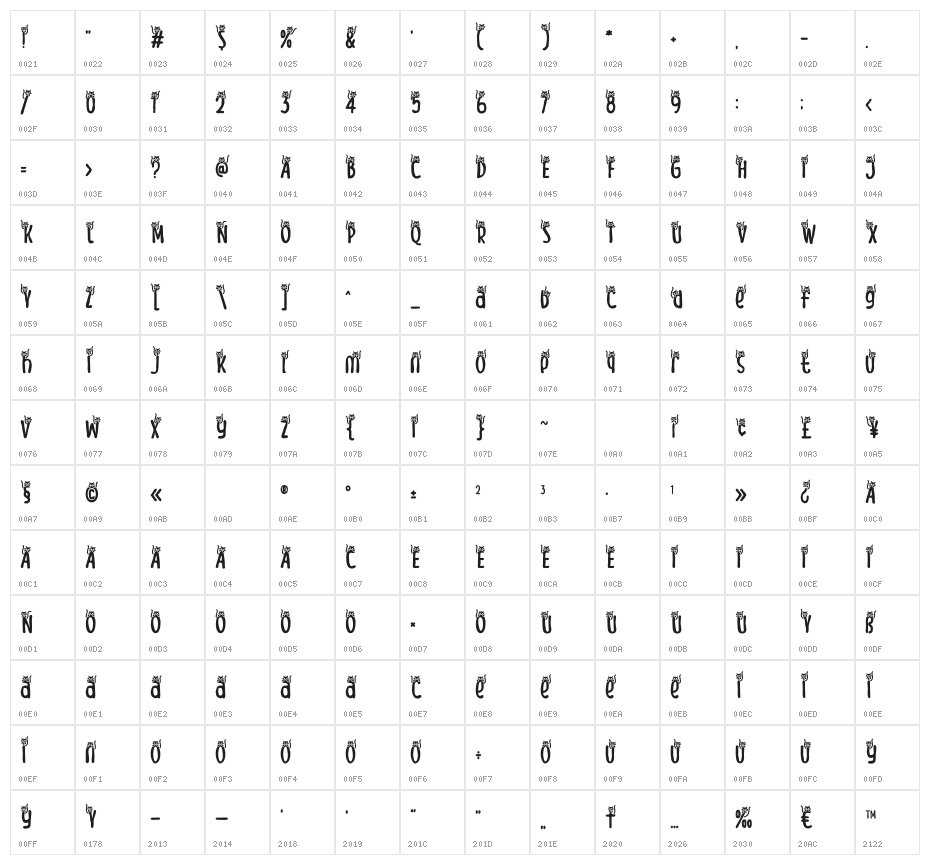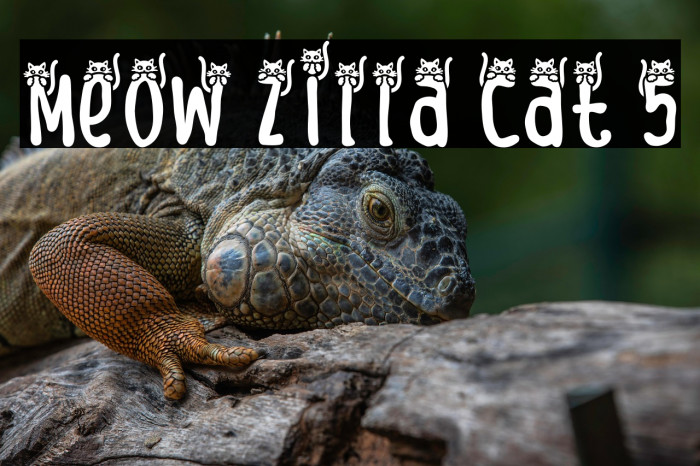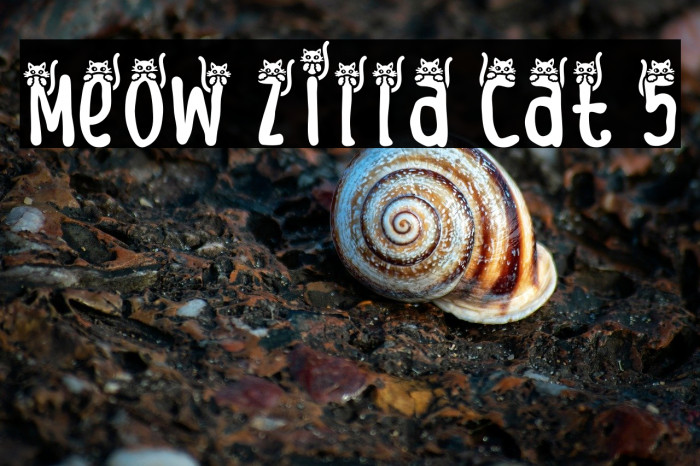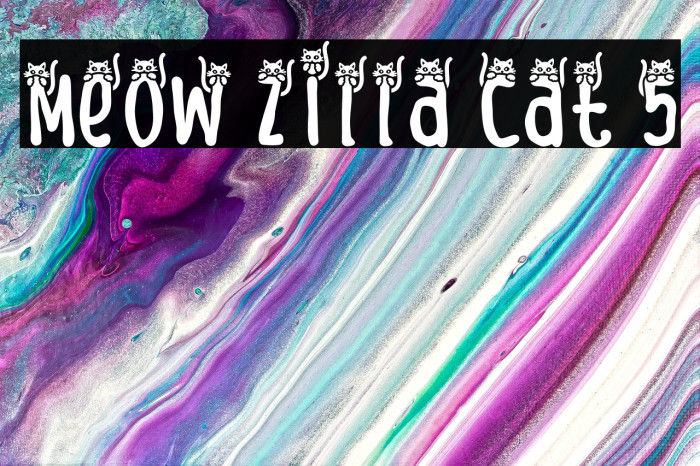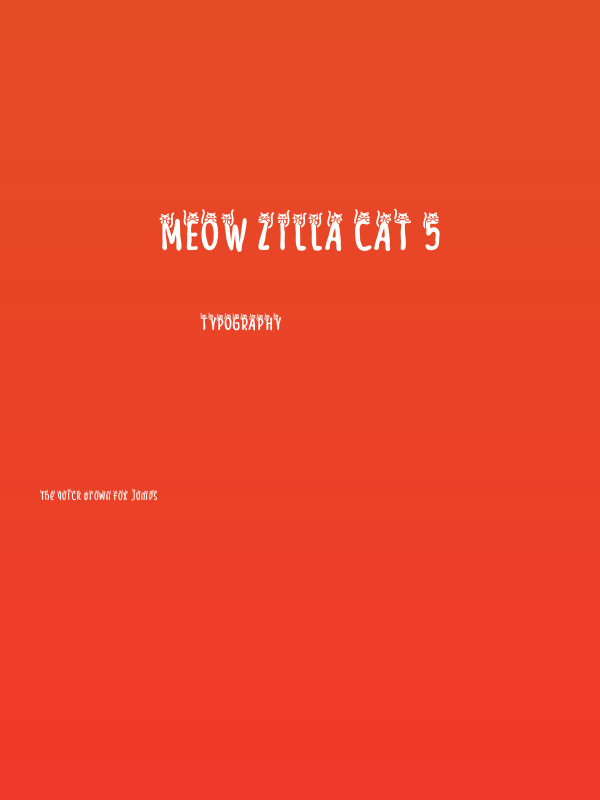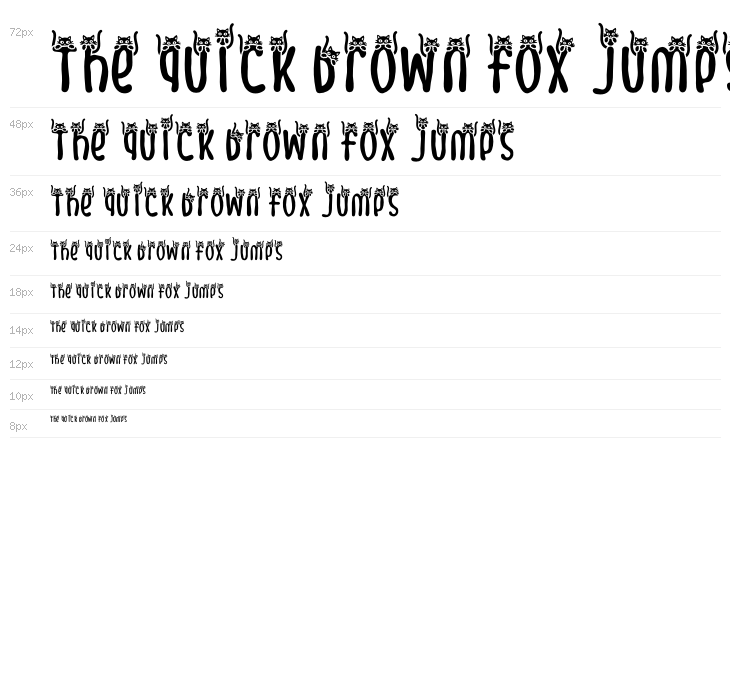
Meow Zilla Cat 5 Font
Meow Zilla Cat 5 Description
A playful, decorative font featuring cat faces integrated into each character, creating a whimsical and fun appearance.
| Proposed Projects | Children's books, pet-related branding, playful designs. |